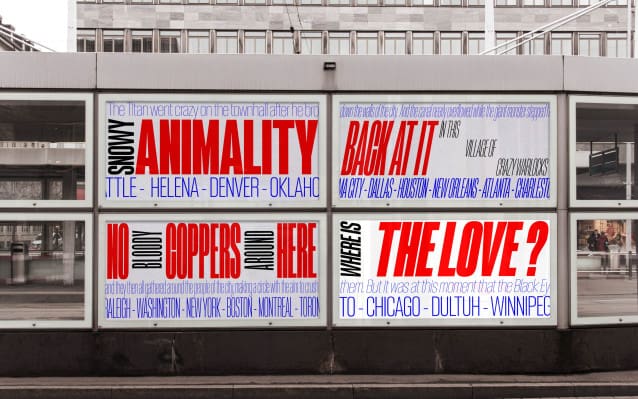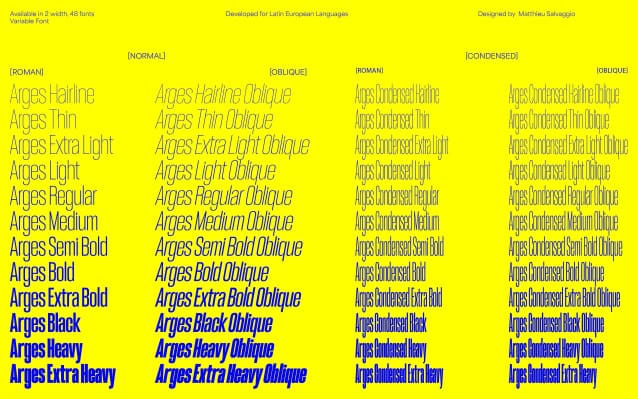
Arges Font
Arges Font, inspired by the famous Cyclope, who helped forge Zeus’s thunder weapon. Completely rethought and completely redesigned in 2018–2019, Arges has become a super family of 11 suitable weights+obliques & two styles (Normal/Concentrated). Originally conceived as a heavy font engine for displays and headings, it has been completely revamped into a typeface family containing a number of useful weights for different text sizes and layouts.